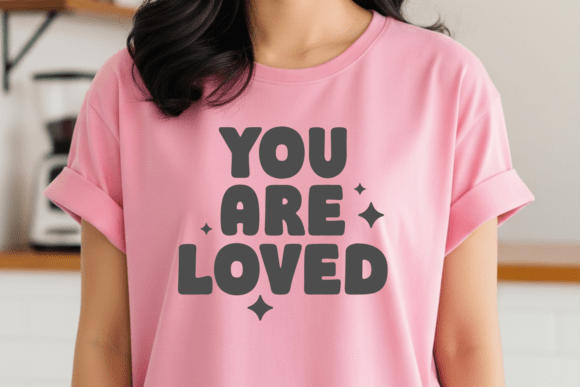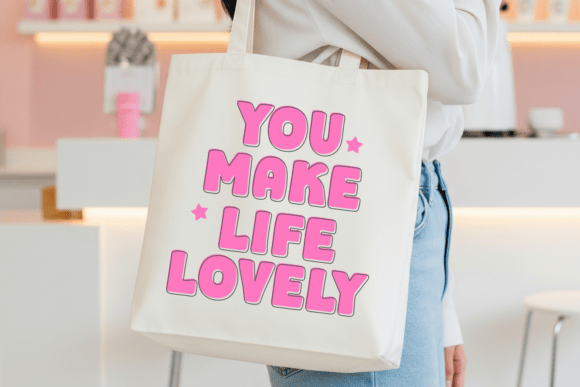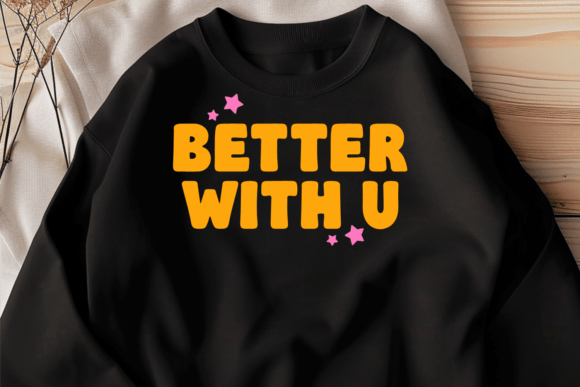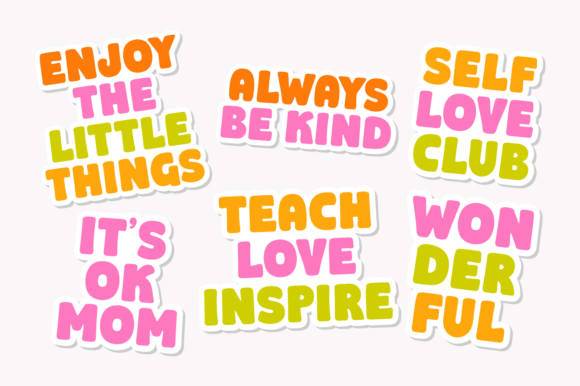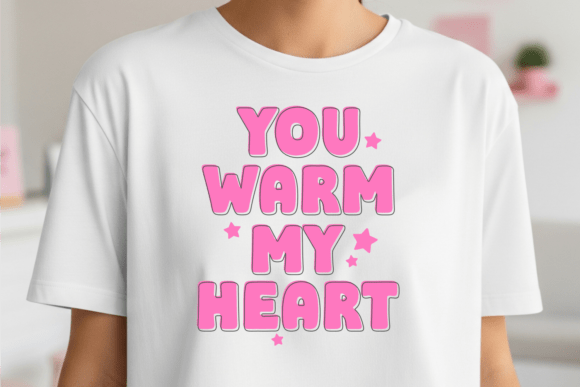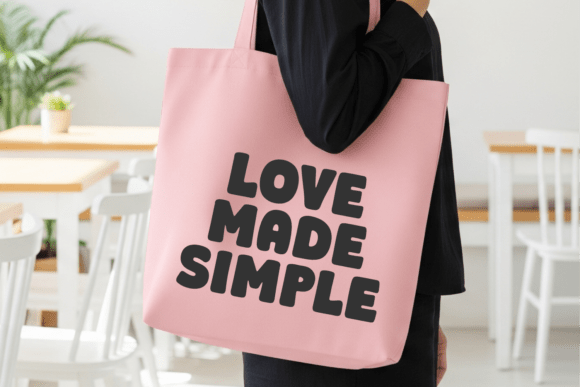
Introduction to Hello Chunky Font
Do you remember that moment when you stumbled upon the perfect font for your creative project? The one that made everything click, and your design just came alive? For designers, finding that elusive ‘font magic’ is a treasure hunt that never ends. But what if I told you that there’s a font that’s been designed specifically to bring that magic to your projects? Say hello to the Hello Chunky Font, a game-changing display font that’s about to take your designs to the next level.
With its thick, rounded characters and modern, friendly aesthetic, the Hello Chunky Font is a design resource that’s hard to resist. Whether you’re working on a high-quality marketing campaign, creating a free download for your audience, or just experimenting with a new creative project, this versatile font is sure to elevate your work. And the best part? It’s available for free download, making it an instant favorite among designers.
Key Features of Hello Chunky Font
- High-quality design resource ideal for creative projects requiring a bold, eye-catching font.
- Unique, chunky design aesthetic makes it perfect for creating attention-grabbing headlines, titles, and other text elements.
Honest Review: Hello Chunky Font
As a designer, I’m always on the lookout for high-quality design resources that can elevate my creative projects. Recently, I stumbled upon the Hello Chunky Font, and I must say, it’s been a game-changer for my recent design endeavors.
Here are some pros and cons of using the Hello Chunky Font:
- ⚠️ Limited font styles: While the font is great, it’s limited to a single style, which might not be suitable for all design projects.
Overall, I’m impressed with the Hello Chunky Font. It’s a great resource for designers who need a high-quality, easy-to-use font for their creative projects. With its transparent background and free download, it’s definitely worth considering for your next design project.
Hello Chunky Font
Hello Chunky Font is a free download design resource ideal for creative projects. This high quality font features a bold, chunky design perfect for adding a playful touch to your designs.
Tips for Getting the Most Out of Hello Chunky Font
To get the most out of Hello Chunky Font, use it on a transparent background to create a striking visual effect. You can also pair it with other bold fonts or graphics to add depth and interest to your designs.
Common Use Cases for Hello Chunky Font
Hello Chunky Font is perfect for designing bold, eye-catching headlines, titles, and text overlays for social media graphics, posters, and flyers. It’s also great for creating fun and playful designs for kids’ parties, birthdays, and other celebrations.